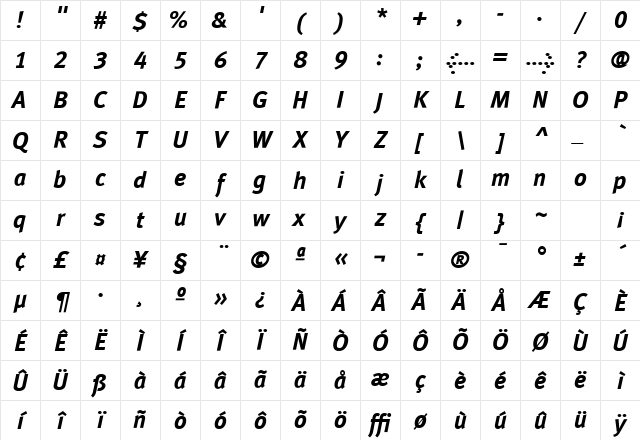
MetaPlusLining Bold Italic
Foundry: Erik Spiekermann
Design Context for MetaPlusLining
MetaPlusLining is a composed and adaptable typeface that performs quietly and consistently across a wide range of design contexts. The slanted form adds forward momentum and visual energy. Its bold stroke weight gives it real presence on the page.
Pro Tip: Use MetaPlusLining for emphasis, pull quotes, and subheadings where its slanted energy can add rhythm to the layout.
Who designed the MetaPlusLining Bold Italic font?